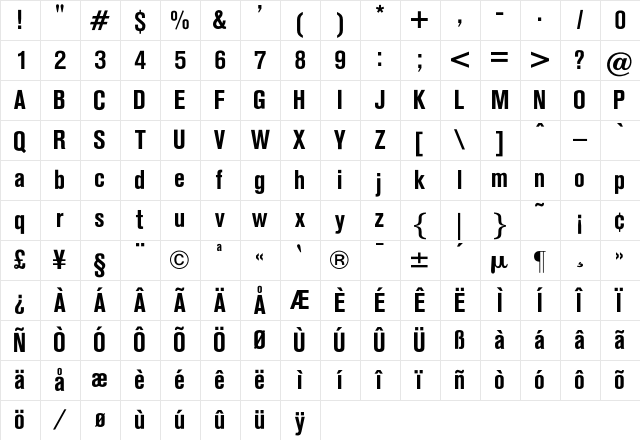
OPTIAkrogroteskBold-Cond Regular Free Font
OPTIAkrogroteskBold-Cond Regular
Design Context for OPTIAkrogroteskBold-Cond
OPTIAkrogroteskBold-Cond takes a clean, functional approach - its unadorned letterforms prioritise legibility and work reliably across screen and print environments. Its bold stroke weight gives it real presence on the page. Its narrow stance lets it pack a punch even in space-constrained designs.
Font Pairing: Use OPTIAkrogroteskBold-Cond for headlines alongside a lighter-weight sans or serif for body copy to establish clear visual hierarchy.
Pro Tip: Use OPTIAkrogroteskBold-Cond tightly set in headlines and banners - its condensed proportions make it ideal for maximum impact in minimum horizontal space.